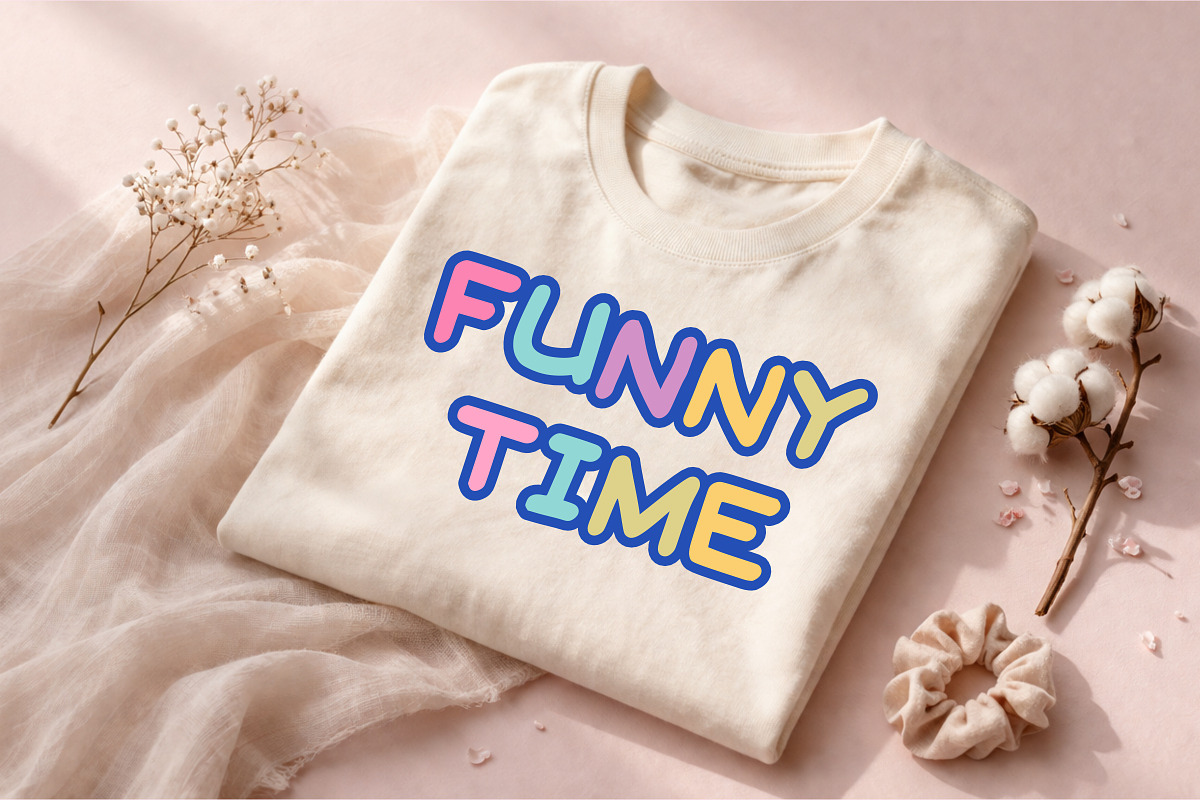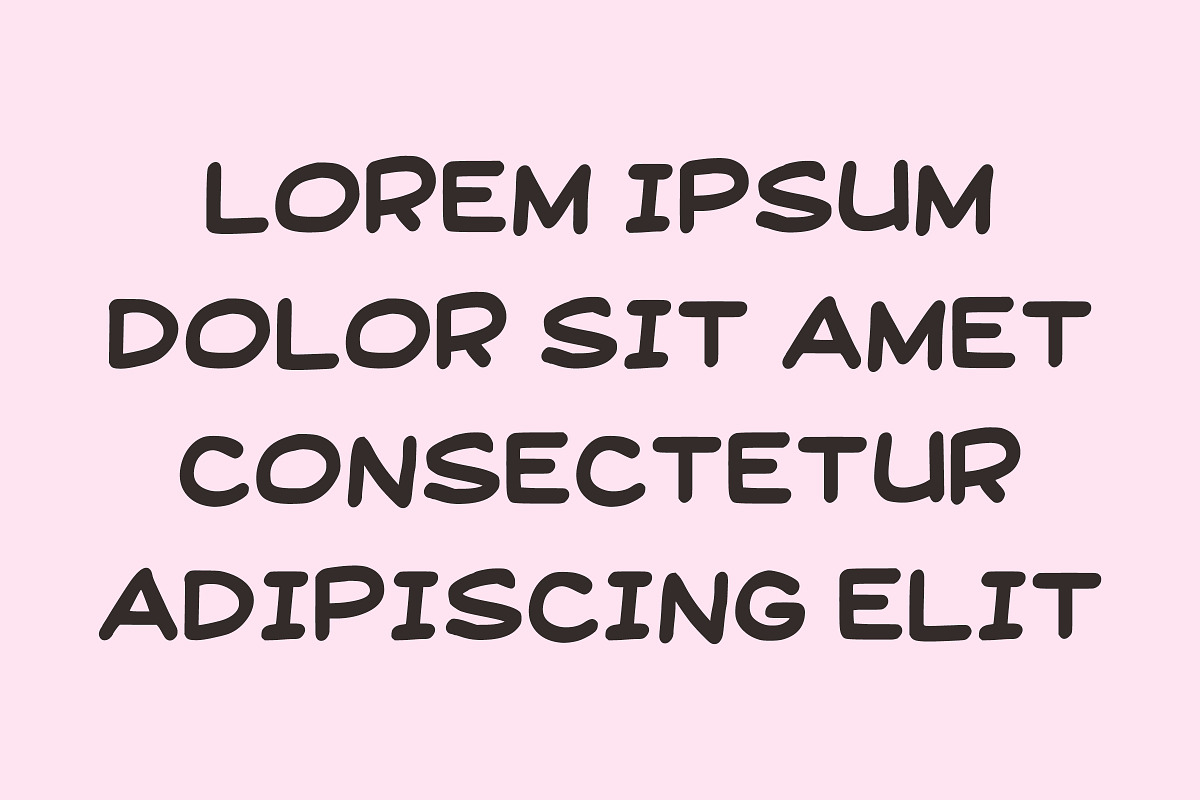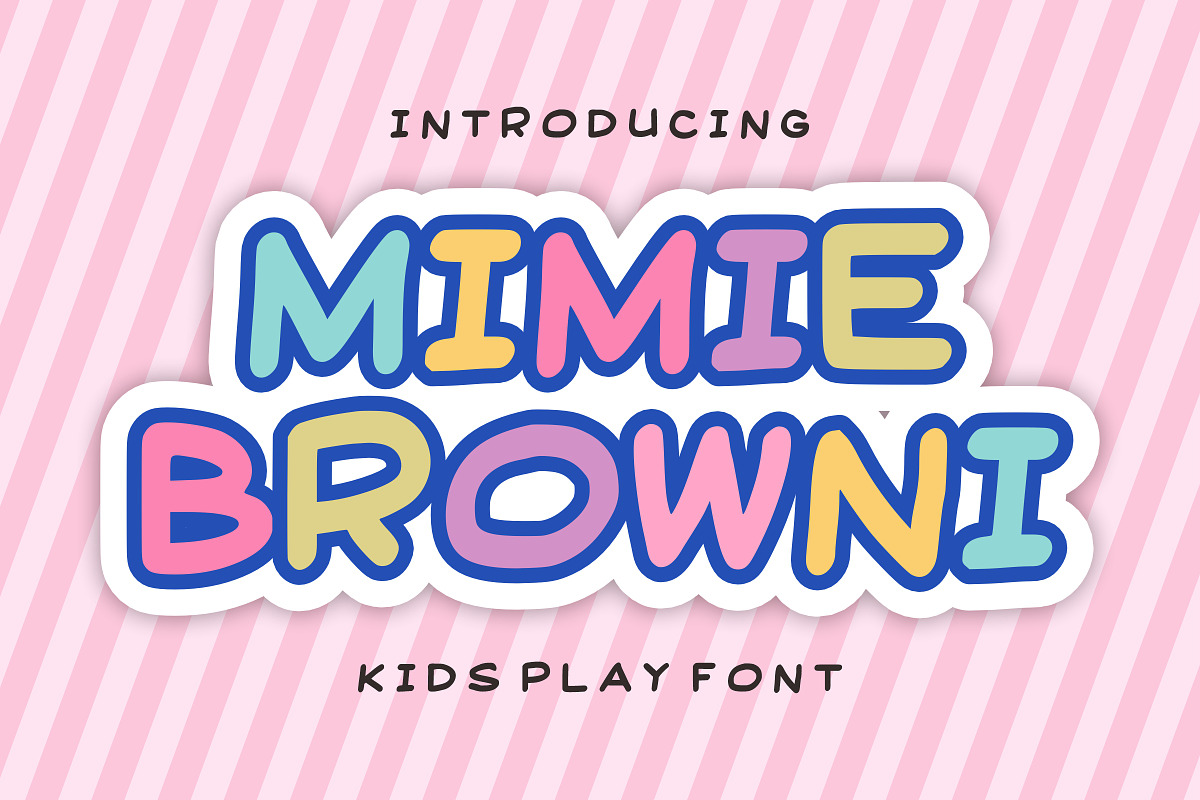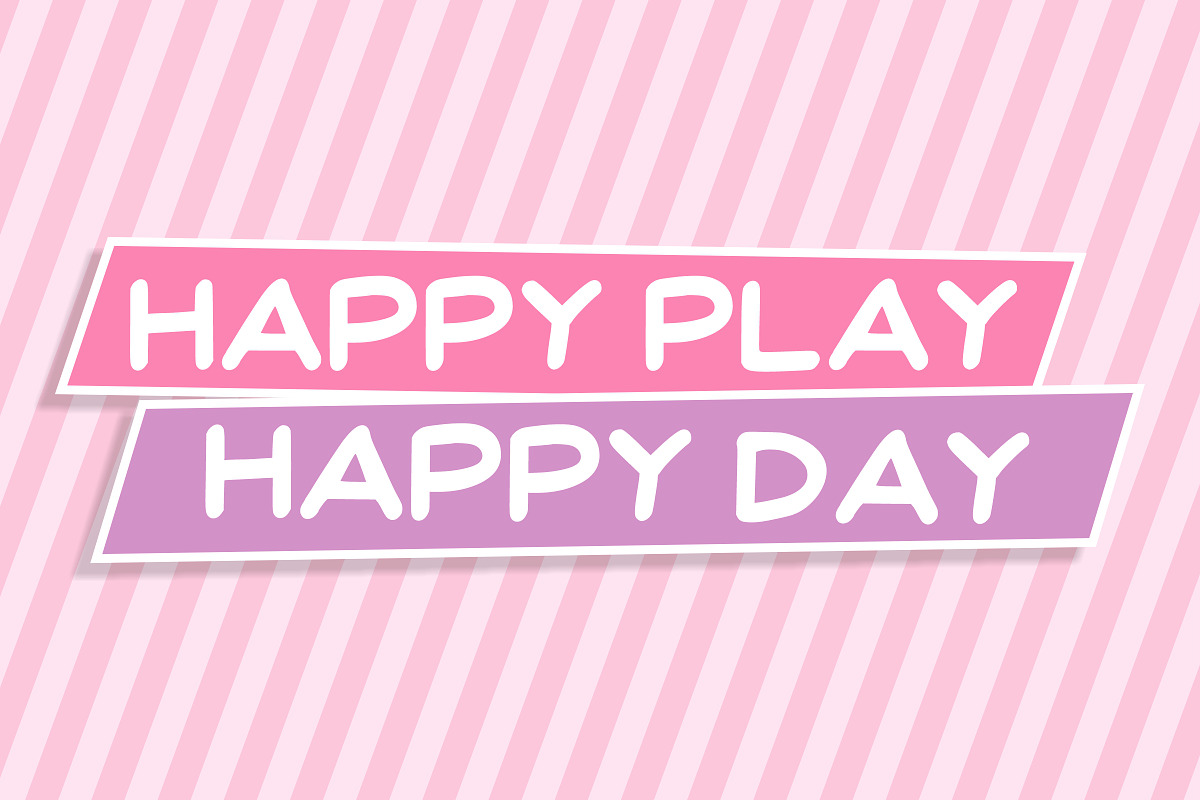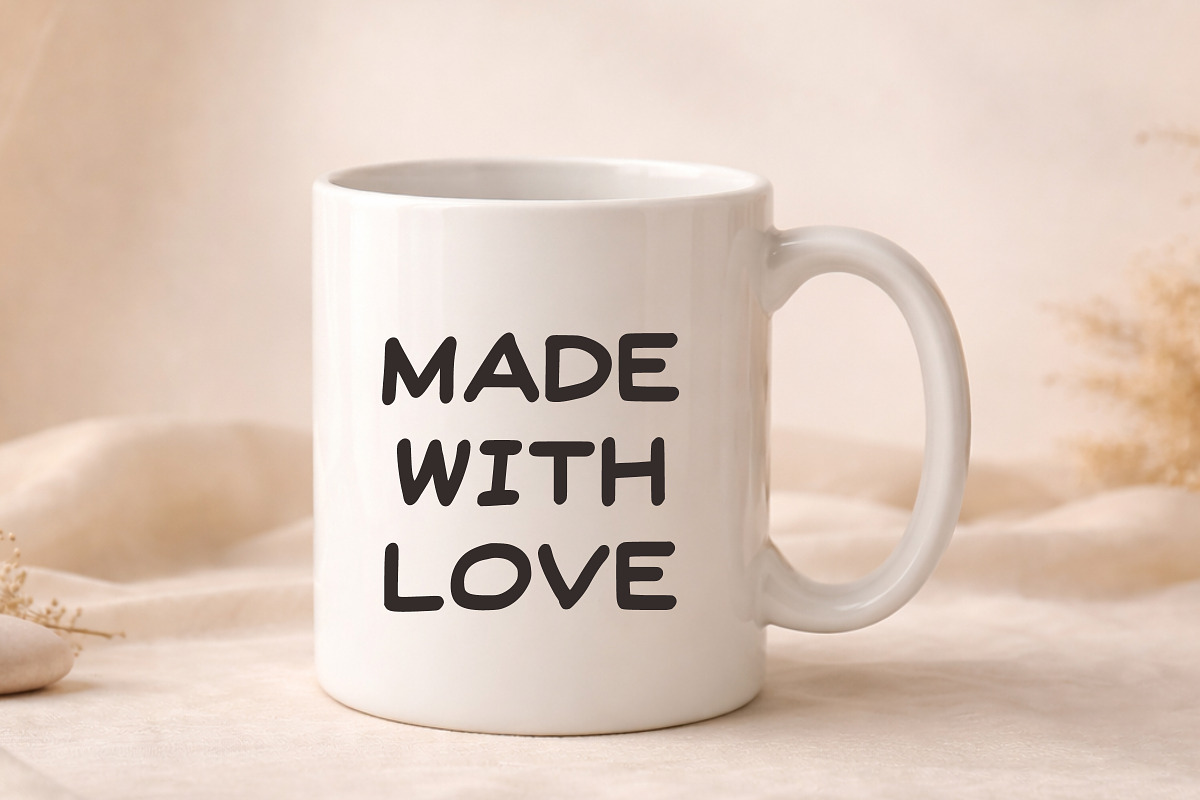
Mimie Browni
Mimie Browni Kids Play Font is a fun, cheerful, and playful display font designed especially for children-themed projects. With its bold rounded shapes and colorful cartoon style, this font brings joy and creativity to any design.
Perfect for kids' products, t-shirts, posters, storybooks, educational materials, branding, and playful social media content. Mimie Browni adds a lively and friendly touch that instantly grabs attention.
Cute and bold cartoon style